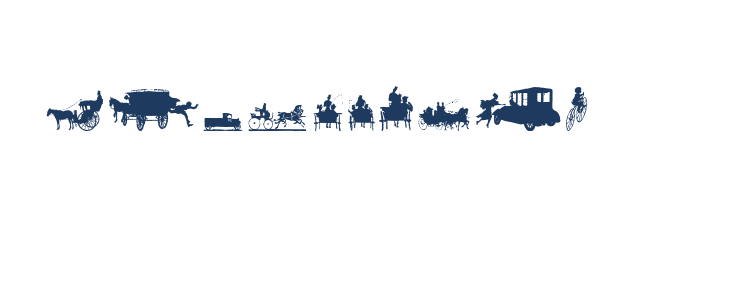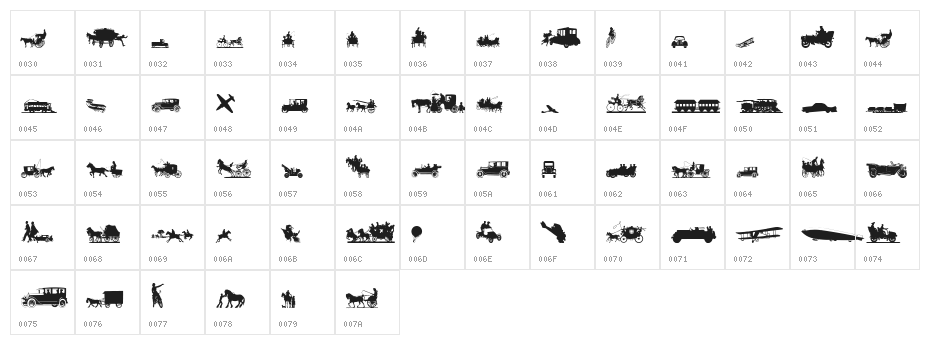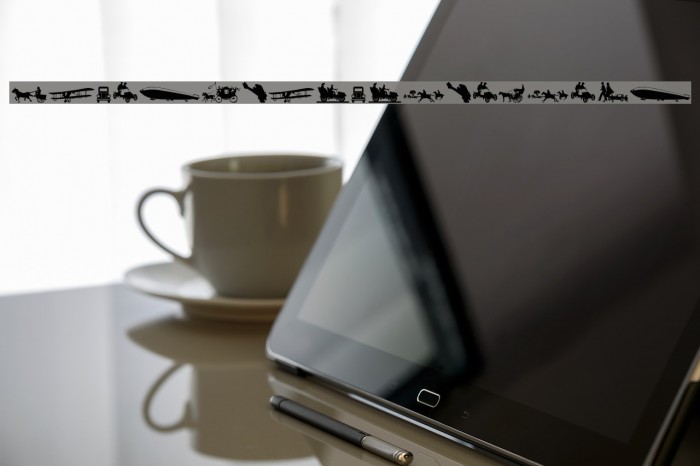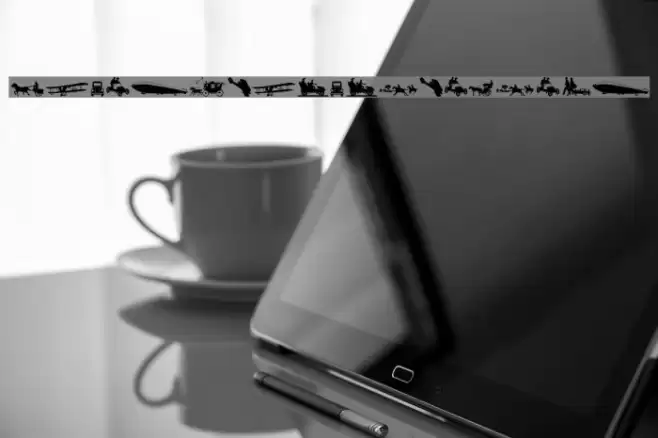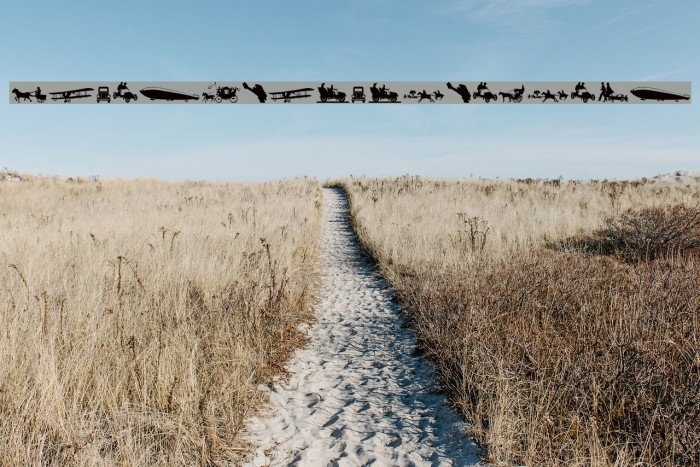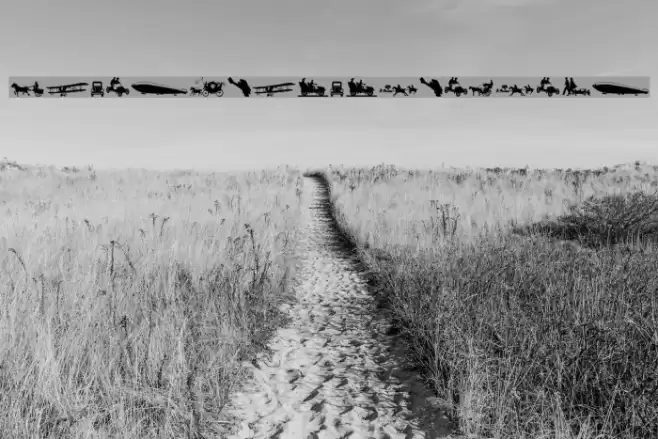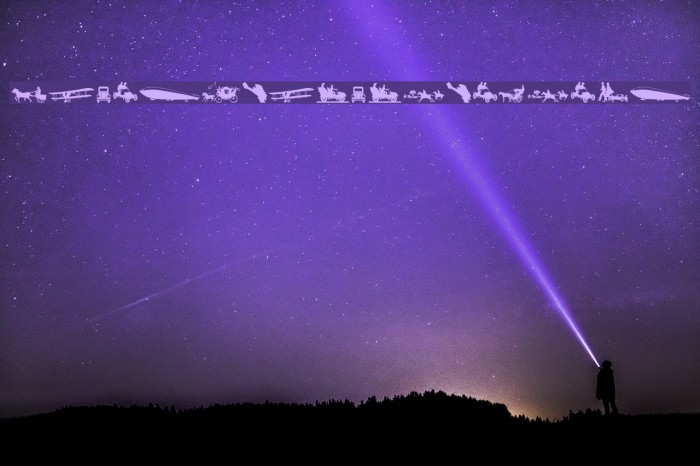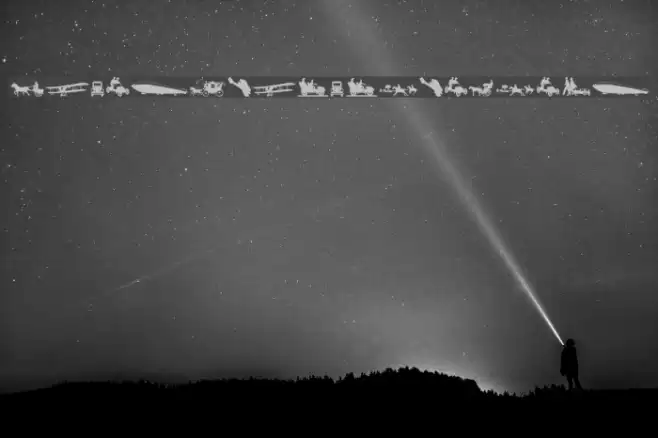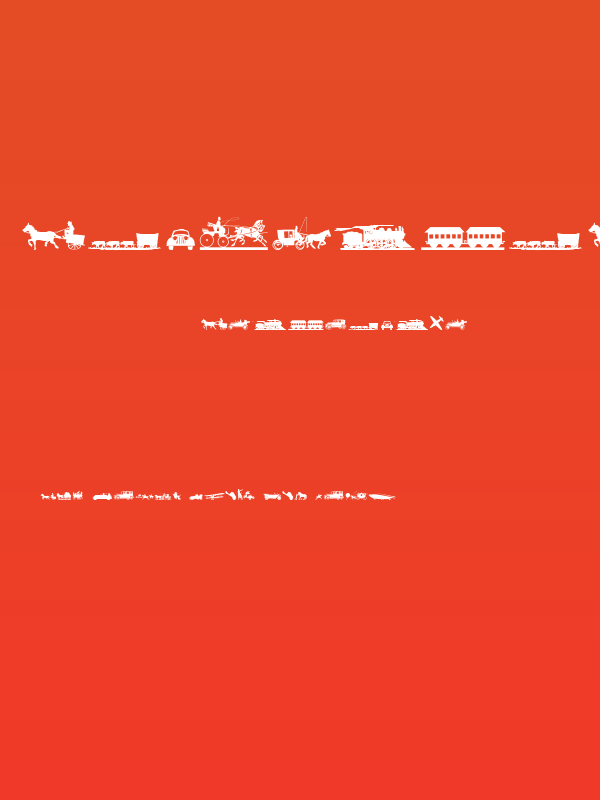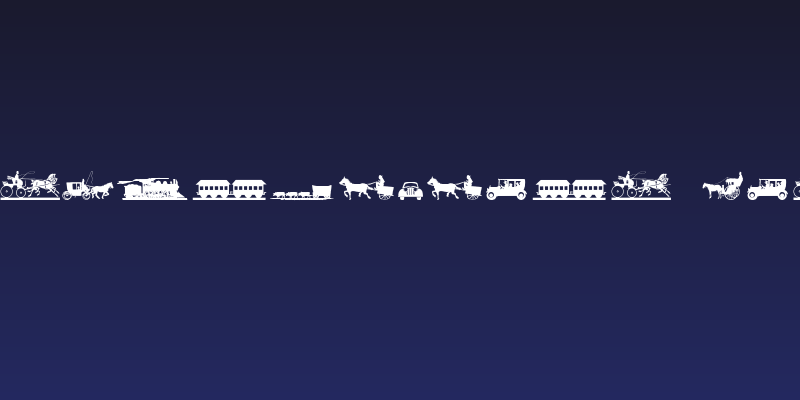
Transportation Dings Font
Transportation Dings Description
This collection features a diverse array of transportation-themed dingbats, showcasing various modes of transport from different eras. The silhouettes include horse-drawn carriages, vintage automobiles, trains, bicycles, and early aircraft, each rendered in a detailed and illustrative style. The designs are intricate, capturing the essence of each vehicle with precision and historical accuracy. These dingbats are perfect for adding a nostalgic or historical touch to projects, offering a glimpse into the evolution of transportation. The consistent black silhouette style ensures they are versatile and can be easily integrated into various design themes.
| Use Case | Decorative elements, Themed designs, Educational materials |
| Proposed Projects | Ideal for historical presentations, educational materials, themed invitations, or vintage-style graphic designs. |